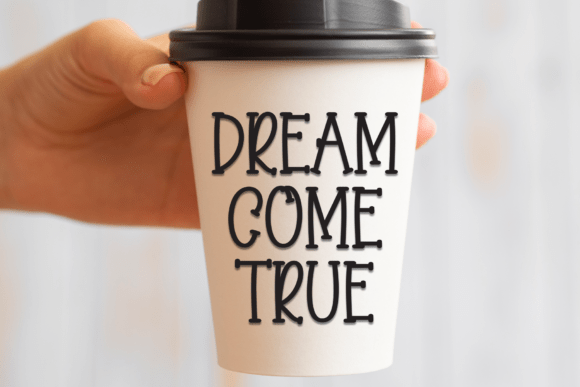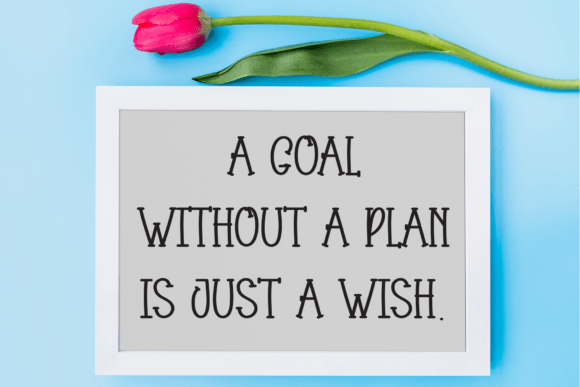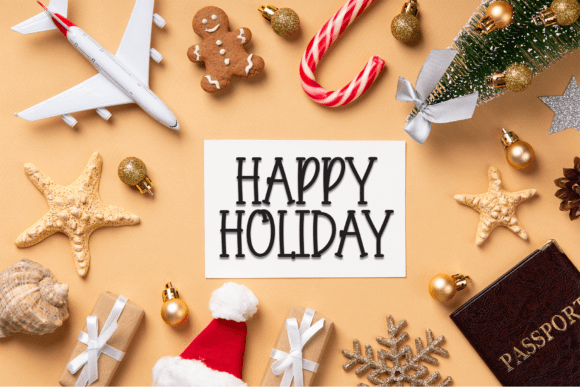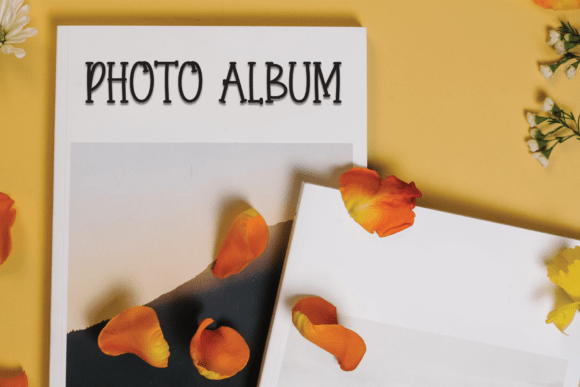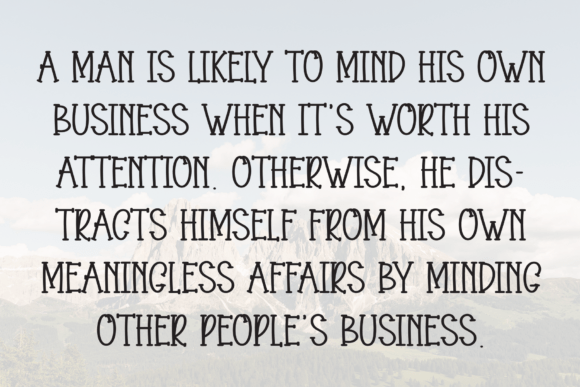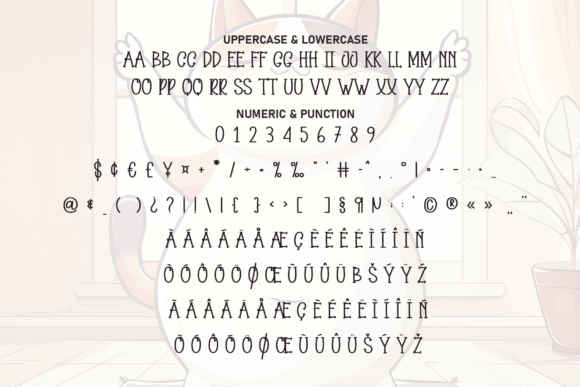
Introduction to Chubby Doodle Font
Have you ever stared at a blank canvas, trying to conjure up the perfect font to bring your creative project to life? It’s a moment we’ve all been there – where the right typography can make or break the tone of our design. For many designers, finding that elusive ‘wow’ factor can be a challenge, but what if we told you there’s a font that can effortlessly add a warm, inviting touch to your work?
Enter the Chubby Doodle Font, a stylish and approachable display font that’s sure to become a staple in your design arsenal. With its clean lines, balanced letterforms, and subtle rounded edges, this font is perfect for designers looking to add a high-quality, modern touch to their branding, headlines, packaging, and digital content.
Key Features of Chubby Doodle Font
- Unique Hand-Drawn Design: Chubby Doodle Font boasts a playful, hand-drawn style that adds a touch of whimsy to any creative project.
- Extensive Character Set: The font includes a wide range of characters, including uppercase and lowercase letters, numbers, and punctuation marks, making it suitable for a variety of creative projects.
- Perfect for Illustrations and Graphics: Chubby Doodle Font is ideal for creating eye-catching illustrations, graphics, and other design elements for a variety of creative projects.
Honest Review: Chubby Doodle Font
I recently had the chance to work with the Chubby Doodle Font, and I must say, it’s a delightful addition to any creative project. The font is available for free download, which is always a plus for designers on a budget.
What works well: ✨ The Chubby Doodle Font features a high-quality design with a unique, playful style that’s perfect for adding a touch of whimsy to your work. The transparent background option is also a great feature, allowing for seamless integration with other design elements.
- Unique and playful style
However, there are a few limitations to consider: ⚠️ The font may not be suitable for formal or professional projects, as it’s more geared towards creative and casual designs. Additionally, the font family is relatively small, which may limit its versatility in certain situations.
Overall, I’m impressed with the Chubby Doodle Font and would definitely recommend it for designers looking for a fun and creative design resource. Just be aware of its limitations and use it accordingly.
Tips for Getting the Most Out of Chubby Doodle Font
Some tips for getting the most out of the Chubby Doodle Font include using it in conjunction with a transparent background, experimenting with different font sizes and styles, and combining it with other design resources to create unique and eye-catching designs.
The Chubby Doodle Font is ideal for a variety of creative projects, including social media graphics, business cards, presentations, and documents. It’s also a great resource for designers who need a high-quality, versatile font for their designs.